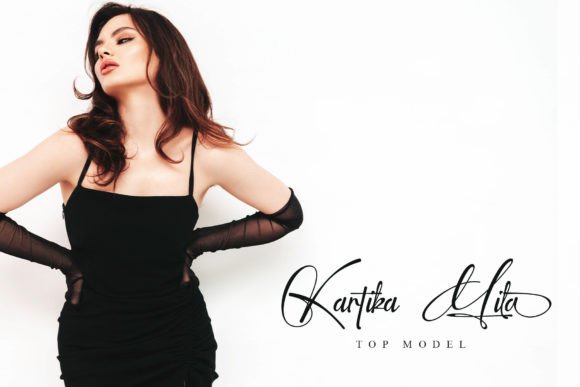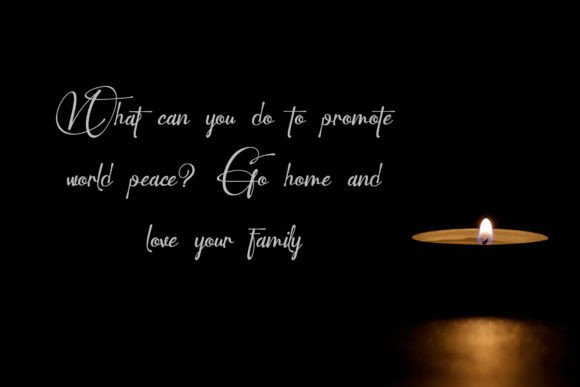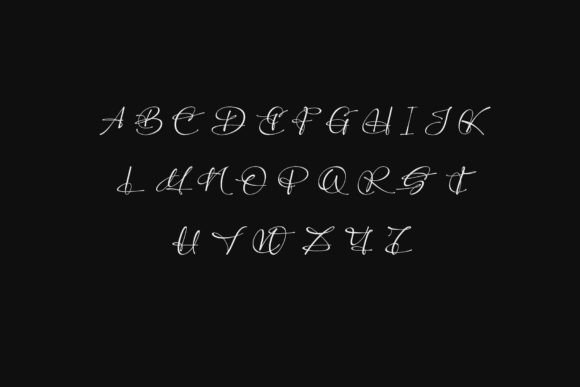
Perfect Signature Font
Introducing “Perfect Signature,” a captivating handwritten font that brings an air of elegance and sophistication to your projects. With its fluid strokes and impeccable letterforms, this signature font captures the essence of personal touch and authenticity. Elevate your designs with the charm of a handwritten signature, whether it’s for branding, invitations, logos, or any creative endeavor that requires a touch of class. Embrace the uniqueness and timeless beauty of Perfect Signature, and let your designs make a lasting impression.